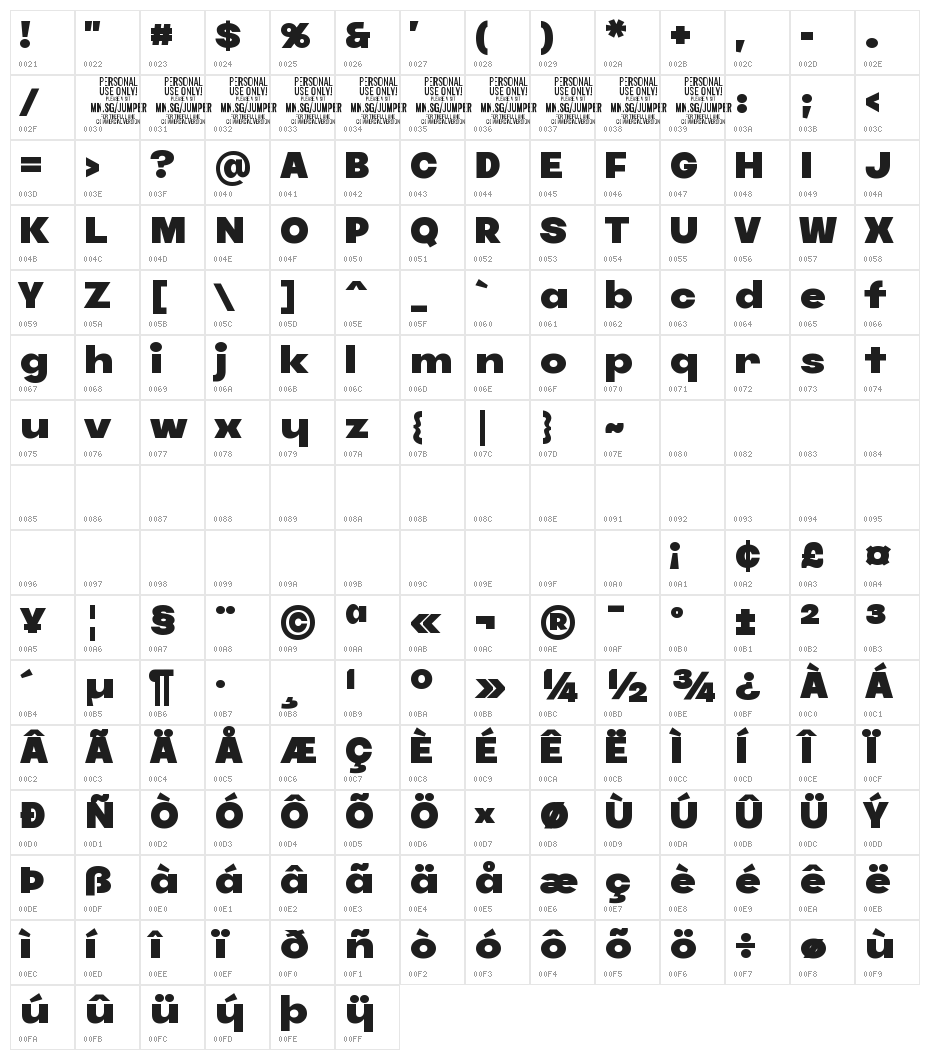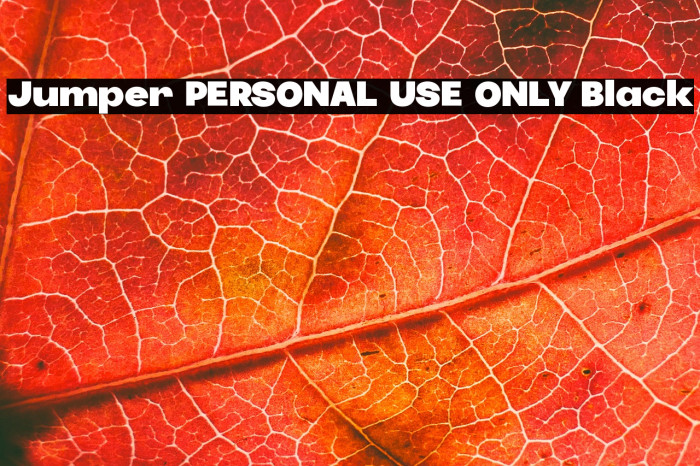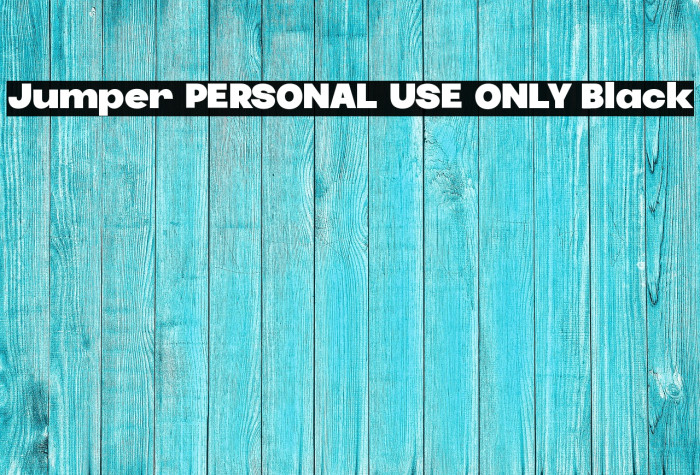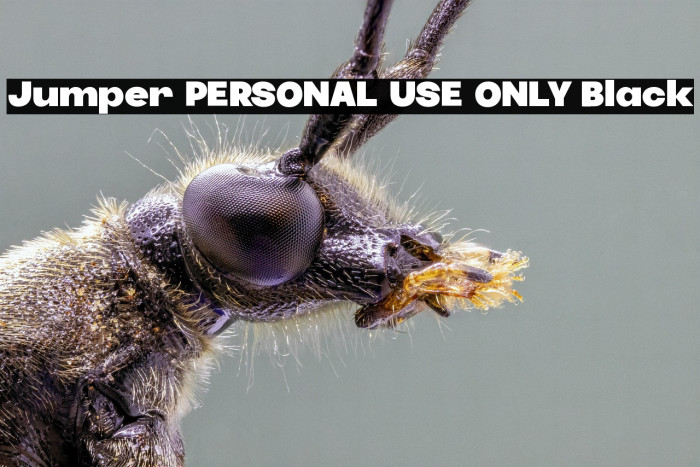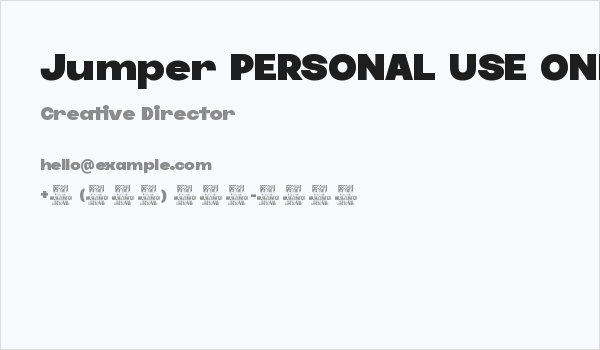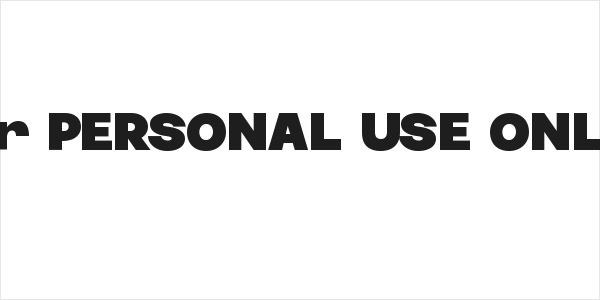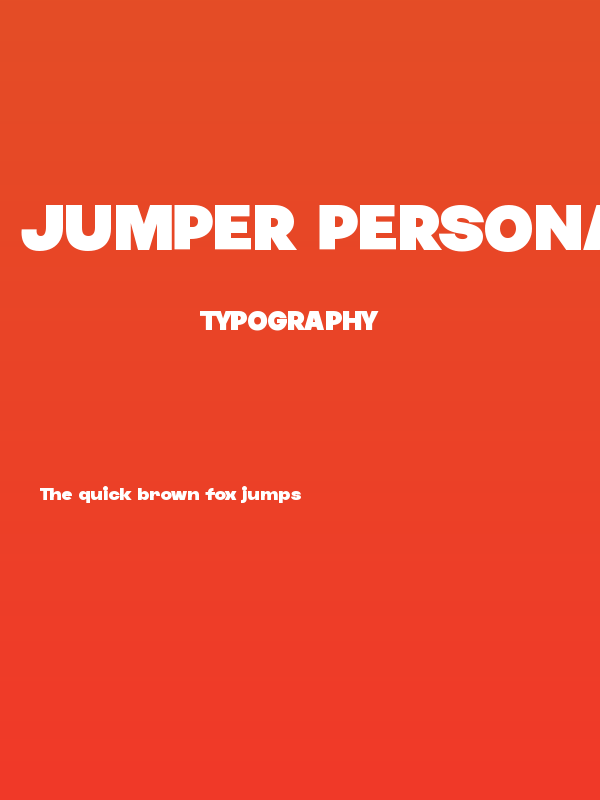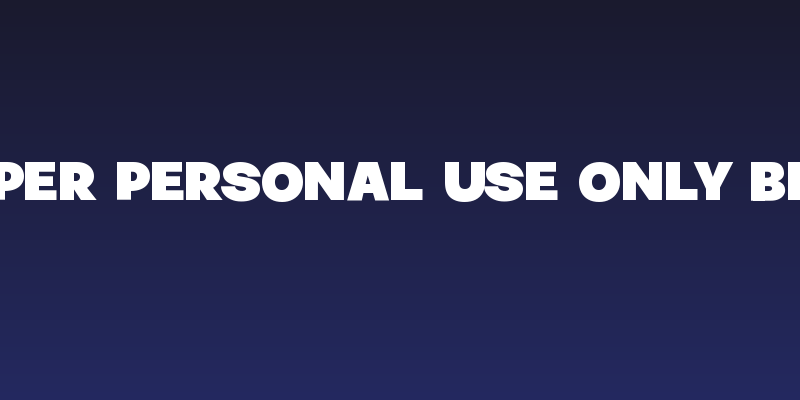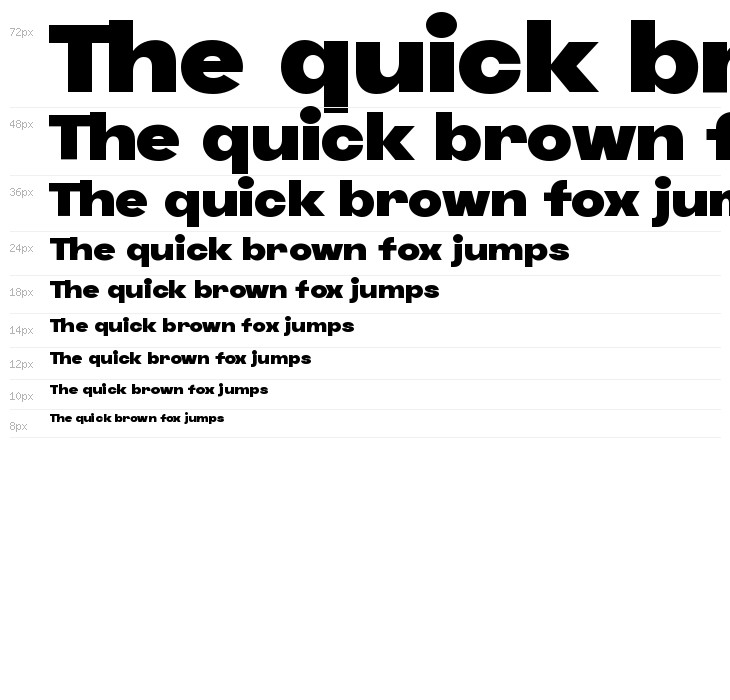
Jumper PERSONAL USE ONLY Black Font
Jumper PERSONAL USE ONLY Black Description
This font features bold, thick strokes with a strong presence, making it ideal for impactful designs. The characters are uniformly wide, giving a sense of stability and strength. The uppercase and lowercase letters maintain a consistent weight, enhancing readability while ensuring a cohesive look. The numerals and special characters are designed to match the bold style, providing a seamless integration across different uses. This font's boldness and uniformity make it suitable for attention-grabbing headlines and titles.
| Proposed Projects | Ideal for posters, headlines, branding, and advertising where a strong visual impact is needed. |